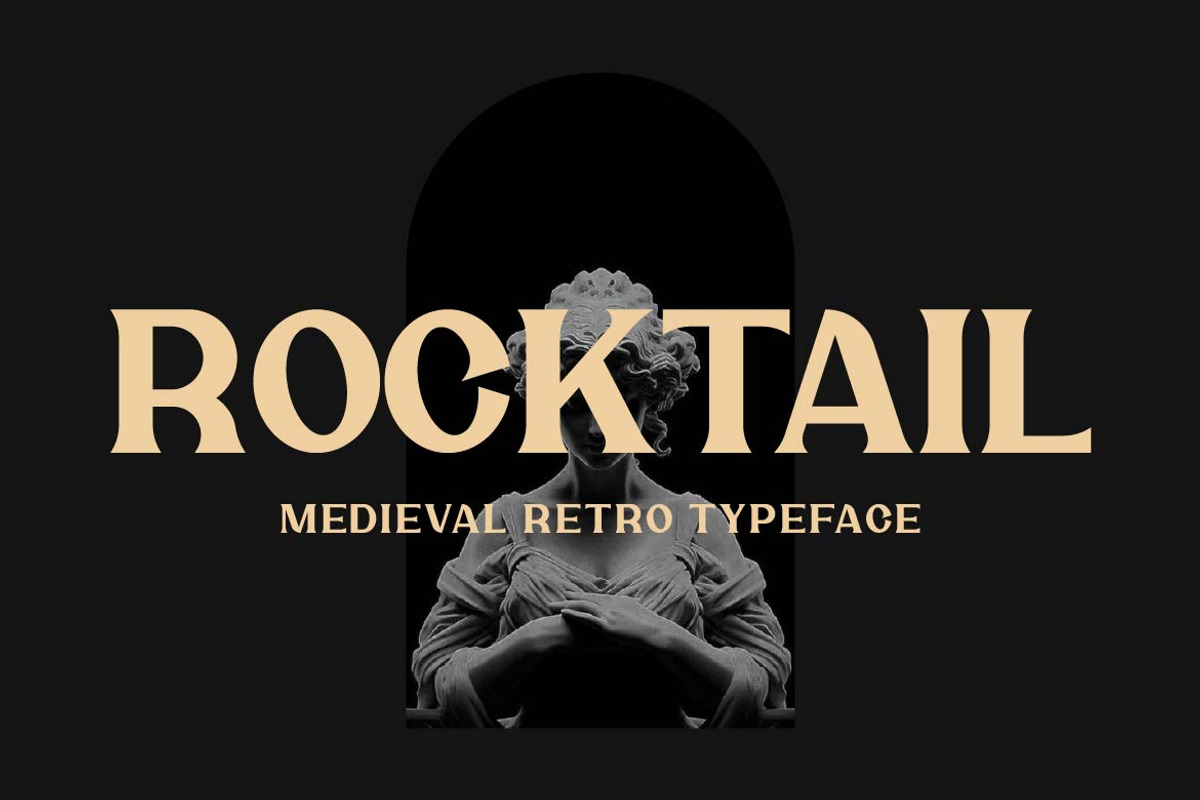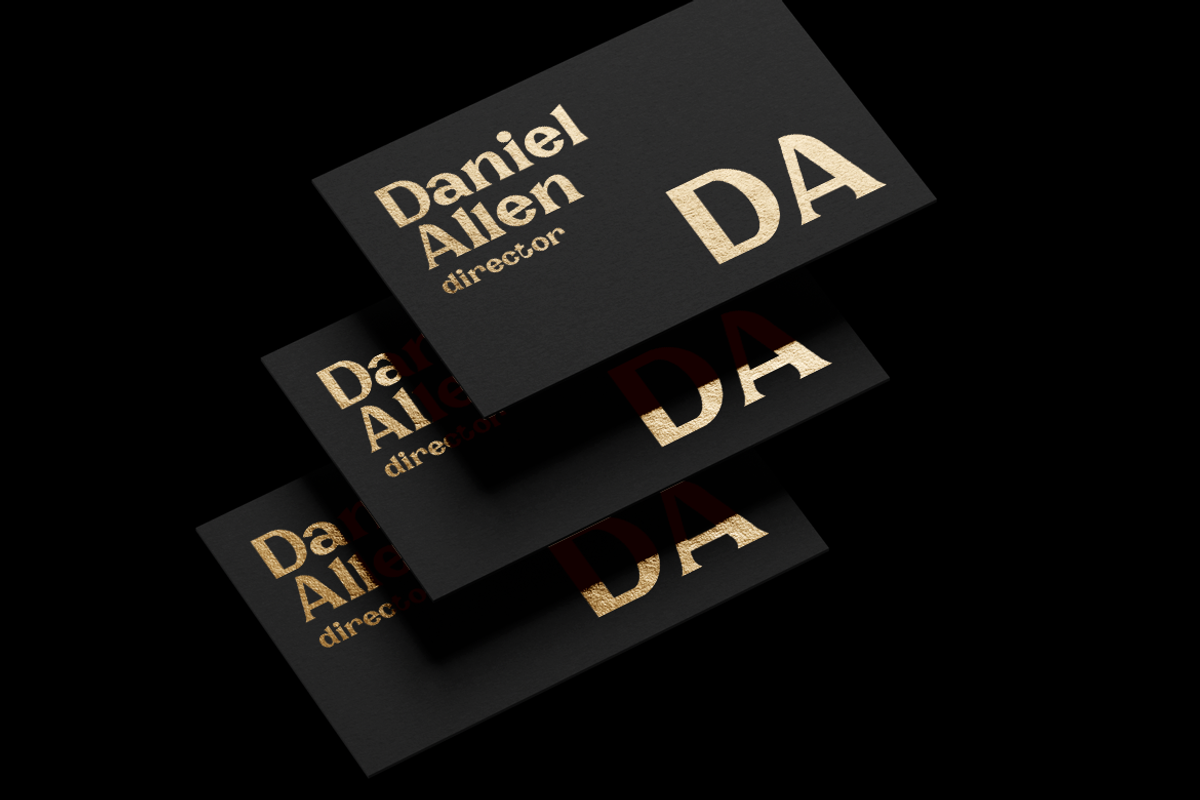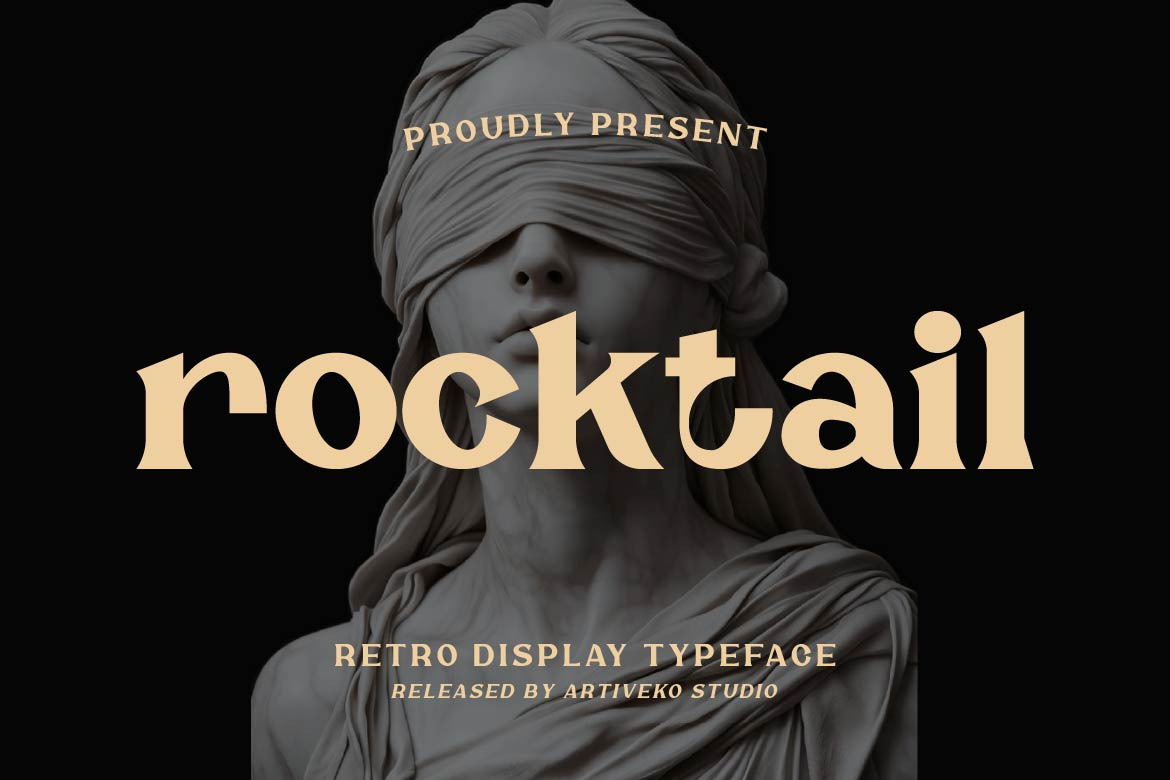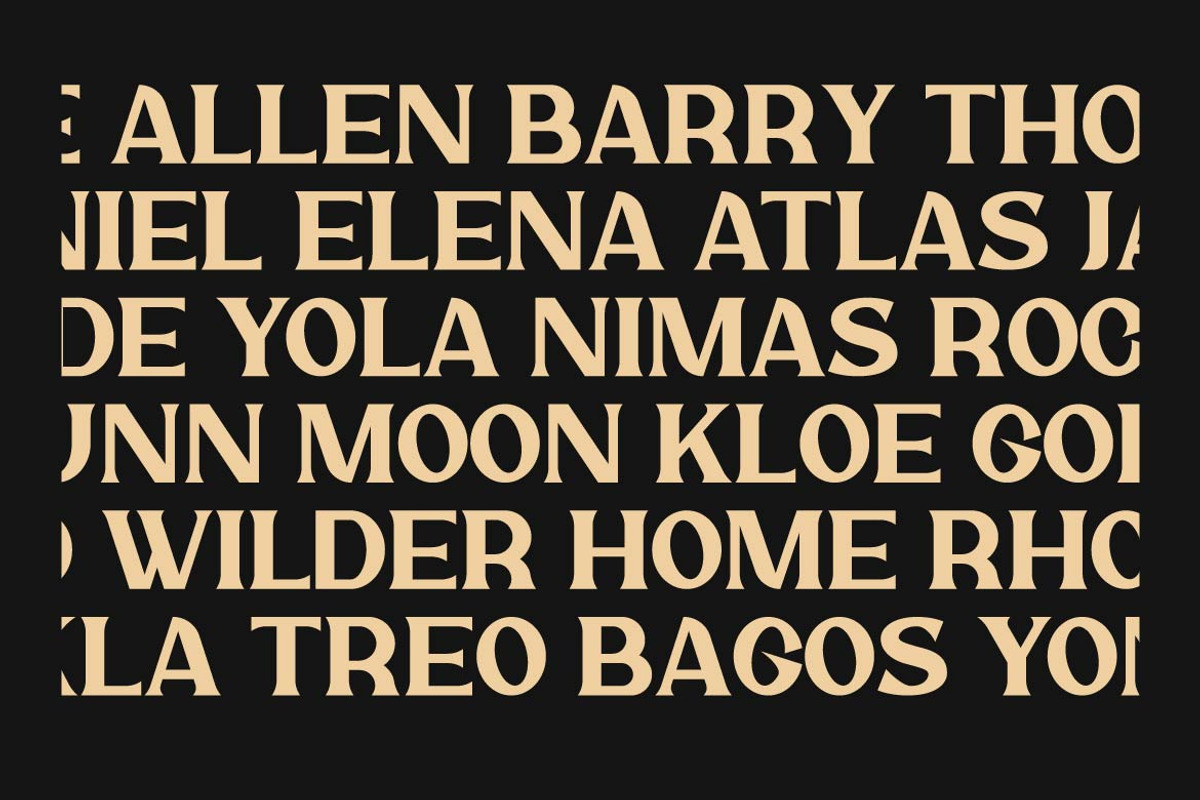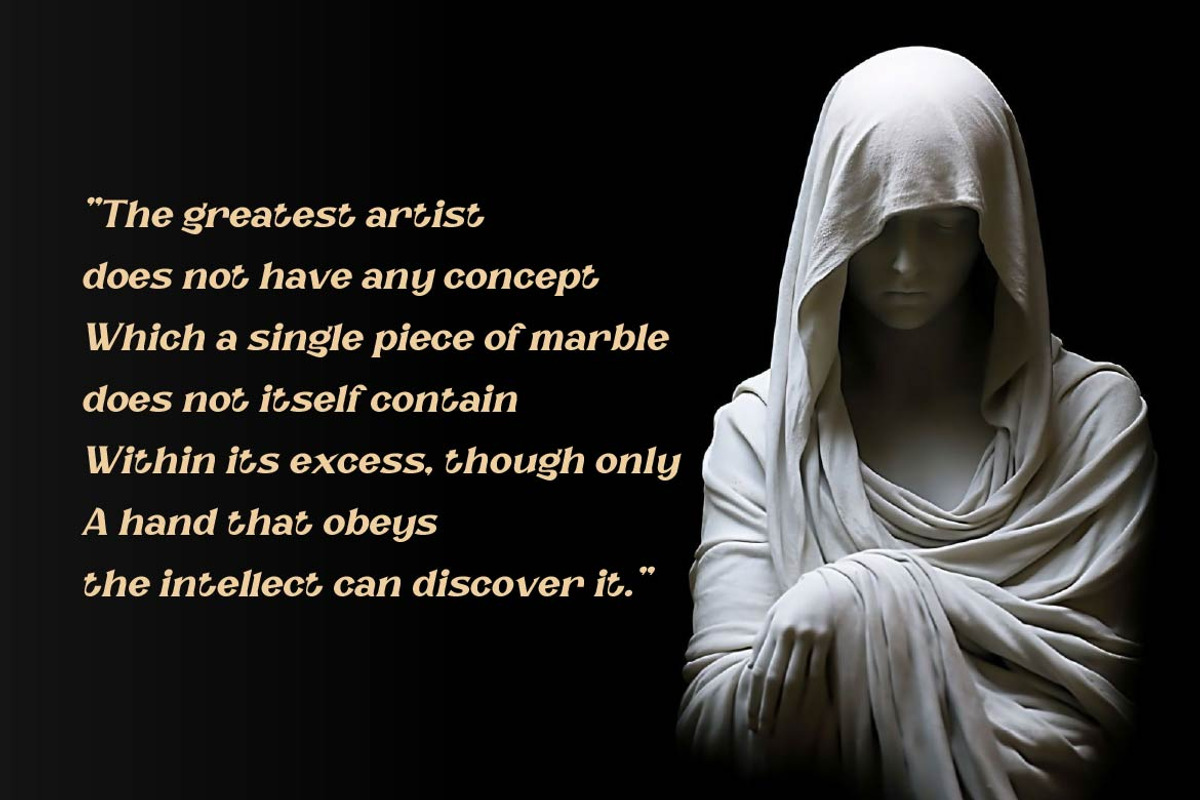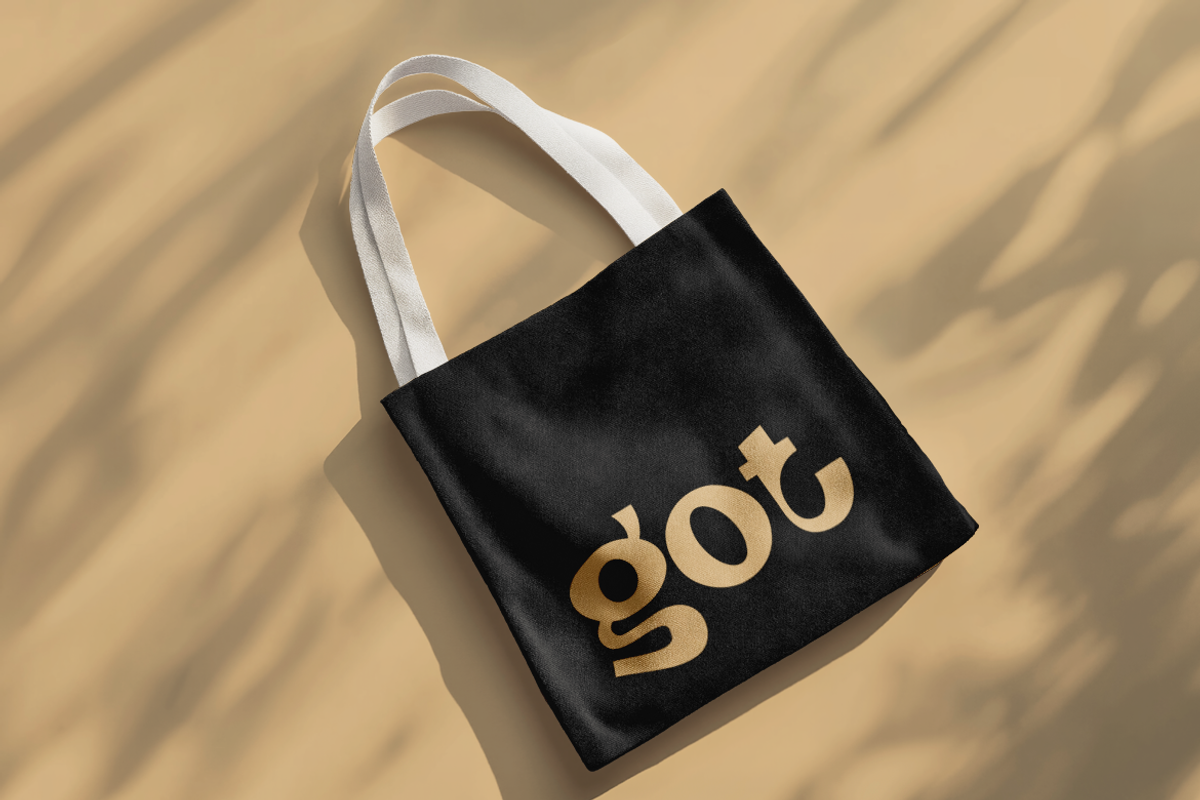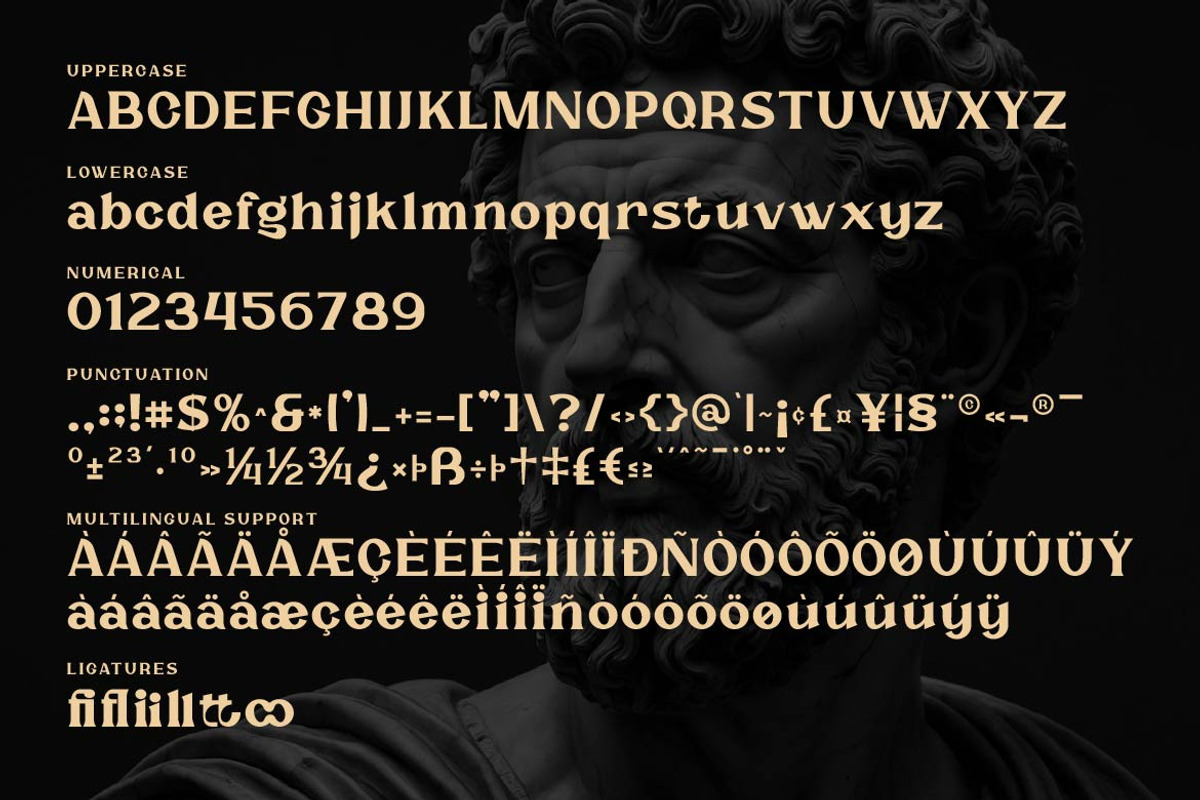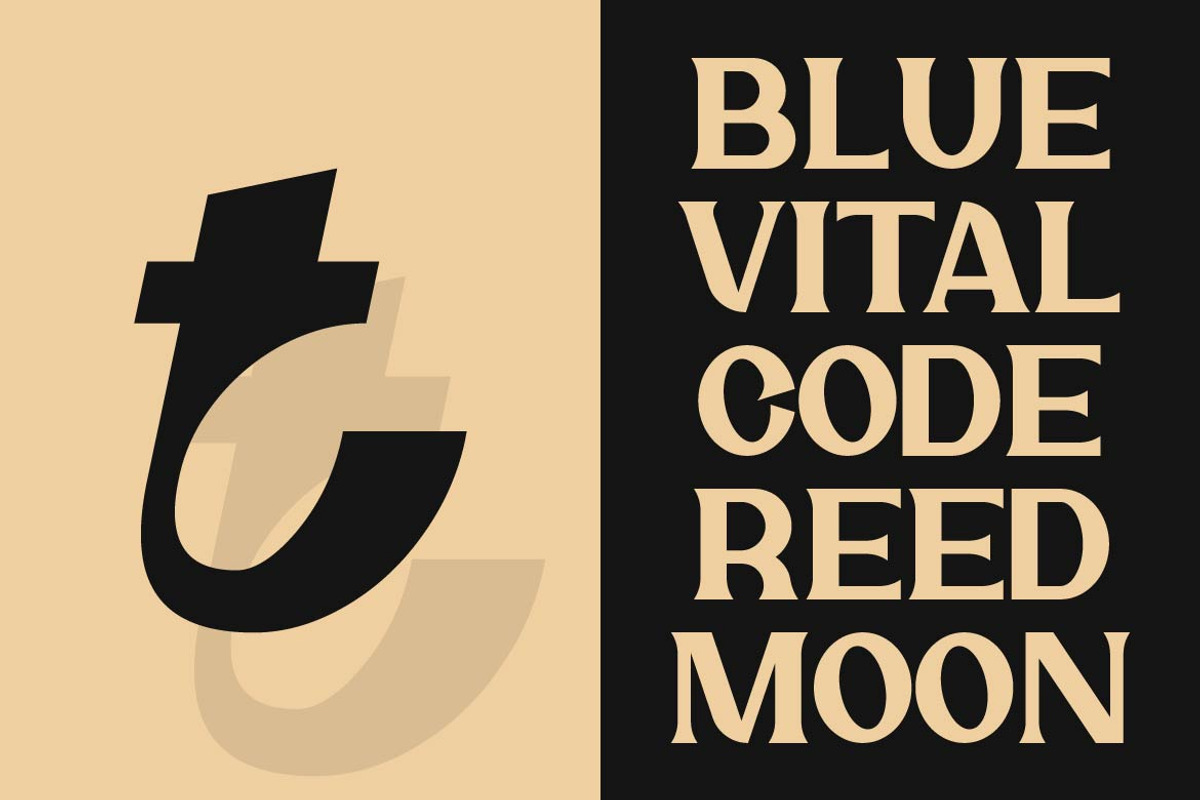
Rocktail – Retro Serif Display Font
Rocktail is a bold retro serif display font built around chunky letterforms, soft curves, and confident, dramatic proportions. Inspired by classic print typography and vintage editorial design, it brings a nostalgic yet refined personality to modern layouts.
Every letter is drawn with deliberate curvature, even where the shape doesn't naturally bend, giving Rocktail a cohesive and distinctive character across the full alphabet. The typeface includes a complete set of uppercase and lowercase letters, numerals, an extensive punctuation and symbol set, multilingual support for accented Latin characters, and discretionary ligatures for a refined finishing touch.
Rocktail is well suited for vintage-inspired branding, premium packaging, editorial headlines, book covers, restaurant and café signage, apparel graphics, and wordmarks that need to command attention. Its heritage feel works especially well for projects rooted in classic print culture, retro fashion, and timeless lifestyle branding.
Whether set large as a headline or used as a standalone wordmark, Rocktail delivers an instantly recognizable retro presence without losing legibility or refinement.
Rocktail — a bold retro serif display font for designs with timeless character.
Ton of glyphs